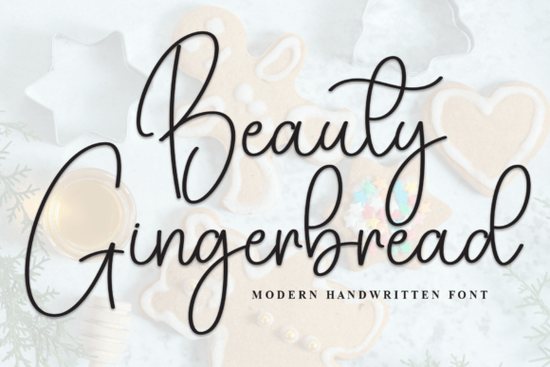
If you're searching for a decorative script that feels both polished and personal, Beauty Gingerbread is a stylish and elegantly crafted font. It manages to look refined without feeling stiff, which is exactly what you want for things like wedding invitations, thank-you cards, or small business logos. The hand-drawn quality makes each letter feel intentional, while still being easy to read.
What makes this script different from other handwriting fonts?
A lot of script fonts lean either too formal (like a copperplate calligraphy) or too casual (like a messy marker). Beauty Gingerbread sits in a sweet spot. The strokes are smooth, with gentle curves and subtle variation in thickness. It doesn't try to imitate a specific pen tool, so it works across digital and print projects without looking out of place. For example, if you pair it with a clean sans-serif on a greeting card, the contrast is noticeable but not jarring. That makes it a versatile choice for designers who need one go-to script for multiple clients.
Another thing to notice is the ligatures and alternate characters. When you type certain letter pairs, like "th" or "be," they connect naturally, which keeps the flow looking organic. This matters a lot for branding and logotype design where every detail counts.
Where can you actually use this font in a project?
Because it's not overly ornate, Beauty Gingerbread works on both large and small scales. Here are a few real uses:
- Wedding stationery – invitations, place cards, and "save the date" designs. The romantic feel fits nicely without screaming "fancy."
- Social media quotes – handwritten-style fonts often get more engagement because they look human. Use it in Instagram posts or Pinterest pins.
- Product labels – think soap packaging, candle jars, or small-batch food items. It adds a handmade touch.
- Print-on-demand mockups – t-shirts, mugs, and tote bags with a script quote sell well. You can test the font in different mockup templates.
- Logo and business card – especially for creative freelancers, wedding planners, or bakeries that want a warm, approachable identity.
For extra inspiration, you might also look at Brittiany Signature if you want a more looped, high-contrast alternative, or Gervia for something bolder.
Is it beginner-friendly for someone who doesn't do much typography?
How does it compare to similar script fonts?
I've tested a few popular scripts in this category, and Beauty Gingerbread holds up well. It's less compressed than Lonely Person, which makes it more readable on smaller screens. It's also rounder and softer than Youngboy, so it feels friendlier. If you need a script with a slightly more playful bounce, try Whimsy Note. But if you want something that sits solidly between elegance and approachability, Beauty Gingerbread is a strong pick.
Practical tips for using this font in your next design
Start with a simple test. Download the font and use it in three different contexts: a short word (e.g., "love"), a longer sentence (e.g., "Thanks for your order"), and a standalone letter (like an initial). See how the spacing and ligatures handle each case. Adjust the tracking (letter spacing) minimally – too much kills the script flow, too little looks cramped.
For print-on-demand, try placing the text on a soft pastel background or a dark background with a gold foil effect. The font's contrast pops nicely in those settings. And always check that the license covers commercial use if you plan to sell products with it.
- Consider pairing it with a simple sans-serif like Montserrat or Lato for body text.